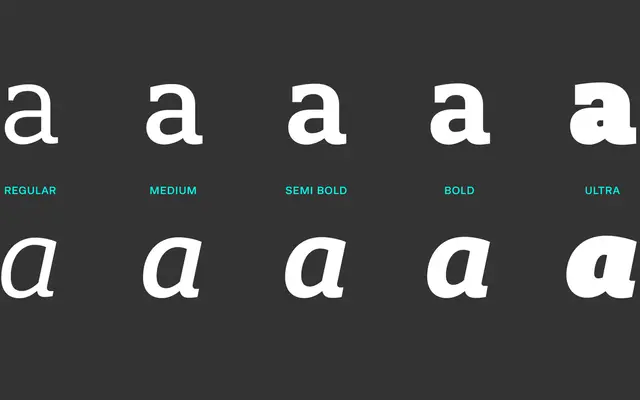
Quatro Slab
A slab serif companion to Quatro Sans, designed for Elliot Jay Stocks' book Insites and released as a standalone family of ten fonts.
Sharing the same design principles as Quatro Sans, Quatro Slab stands as a fully independent typeface rather than a simple variation. The family spans ten fonts including styles from Regular to UltraBlack, with at least one italic cut. Its origin as a commission for a design book gives it a clear editorial grounding.
Quatro Slab is a slab serif companion to a sans-serif family, sharing geometric construction principles while adding slab serifs for a distinct typographic character.